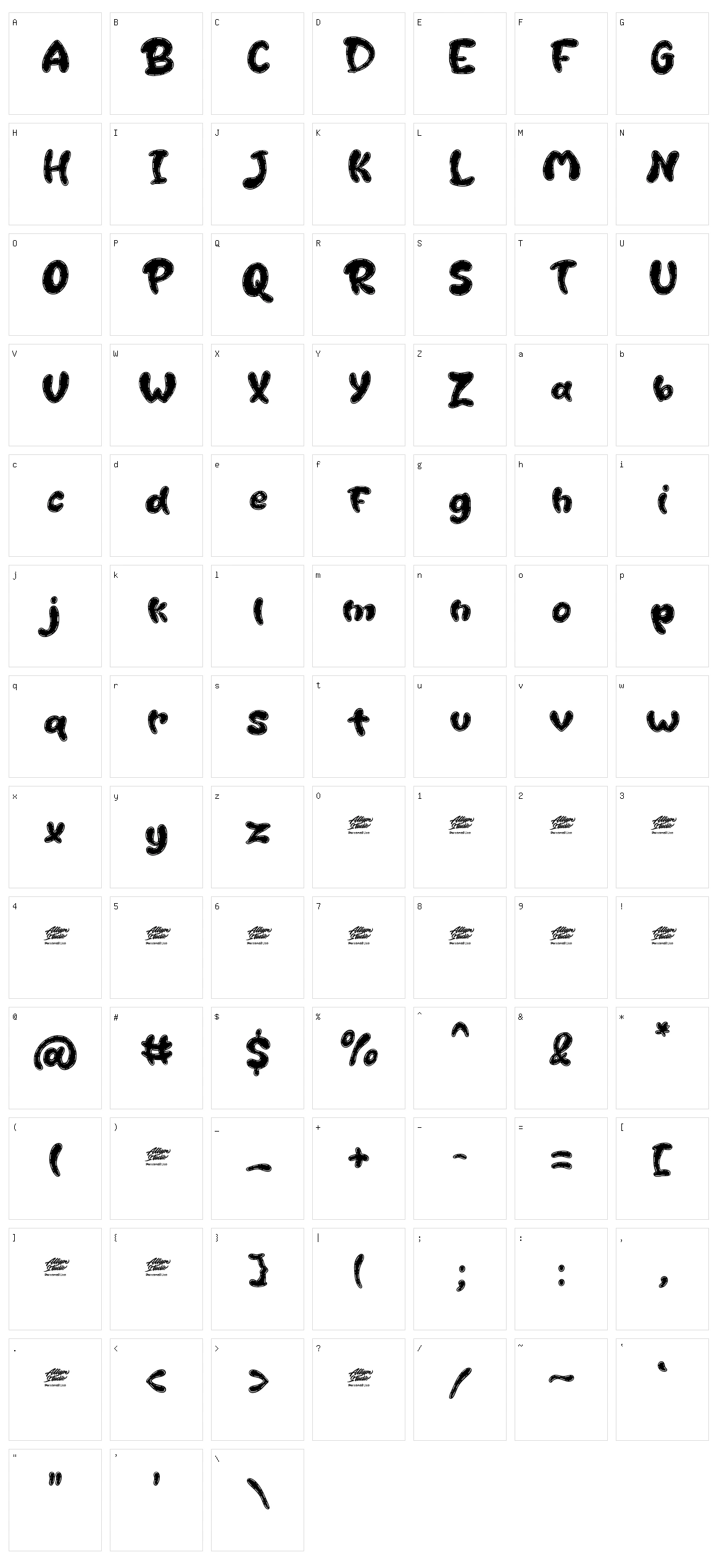
The free font Cutey Patchy is carefully designed by Attype Studio, showcasing a thoughtful balance of creativity and usability and falls under the Cartoon font style. When you download the ZIP file, it contains only 920.6 KB of font files, making it lightweight and quick to download. Please review the license details below to understand permitted usage and distribution rights. If license information is not available, we recommend using this font for personal projects only or contacting the author directly for commercial usage permissions.